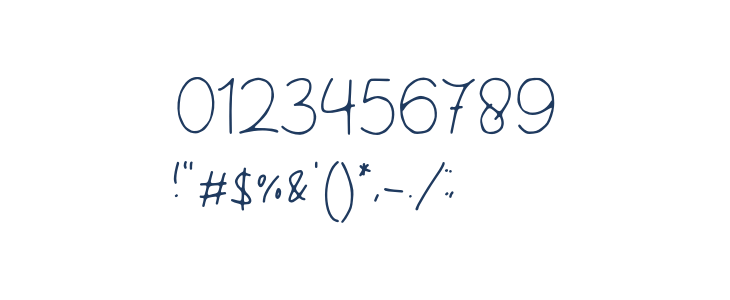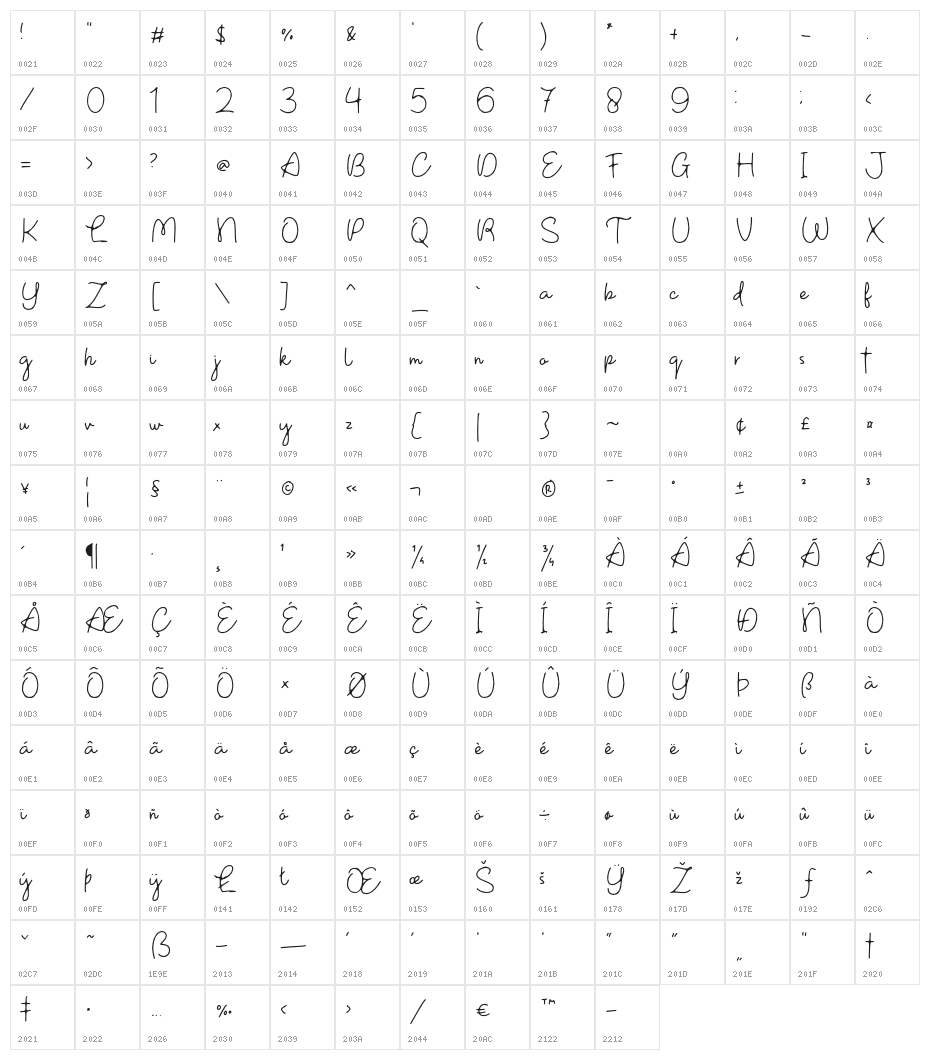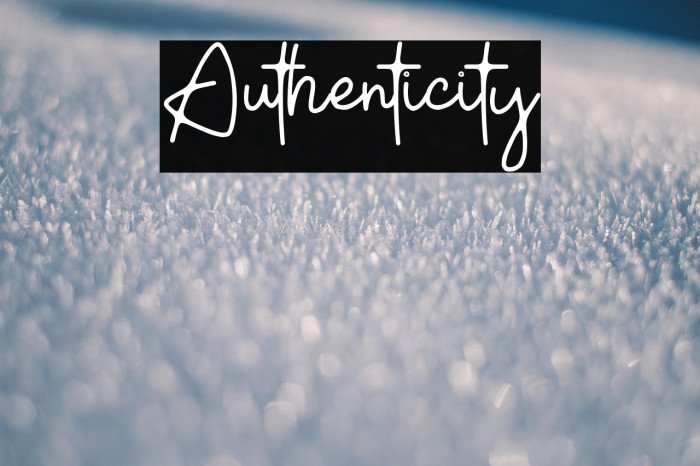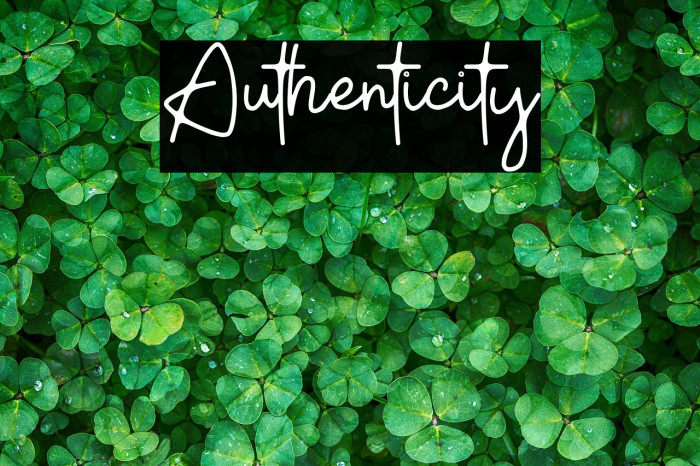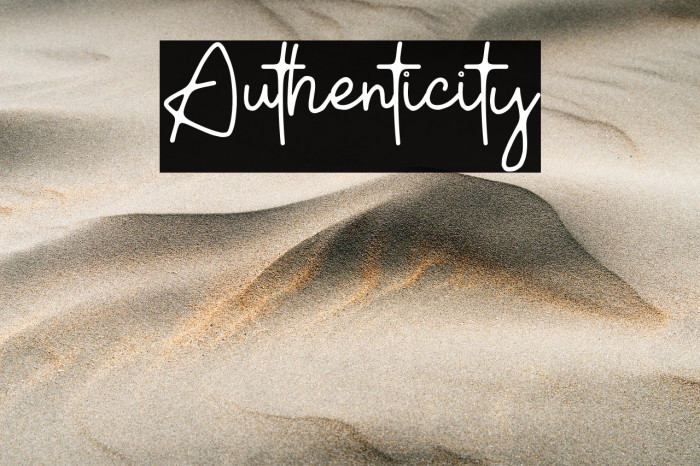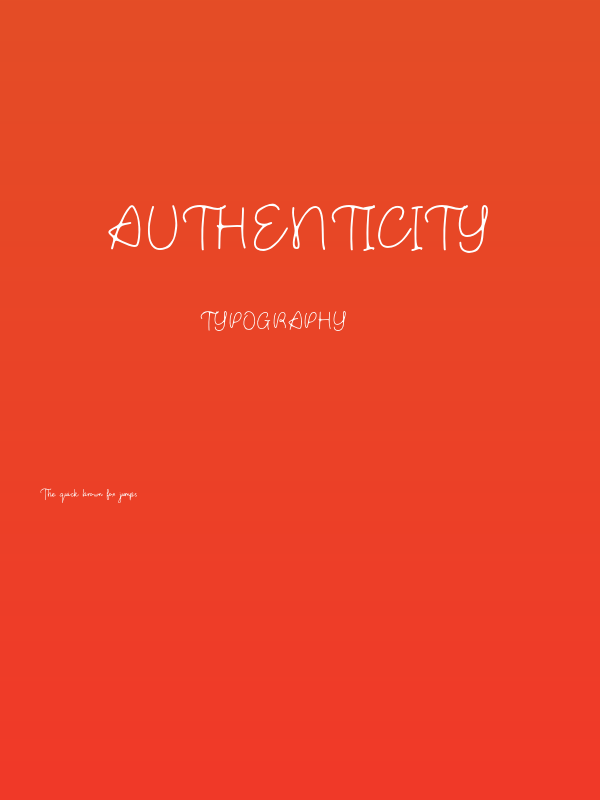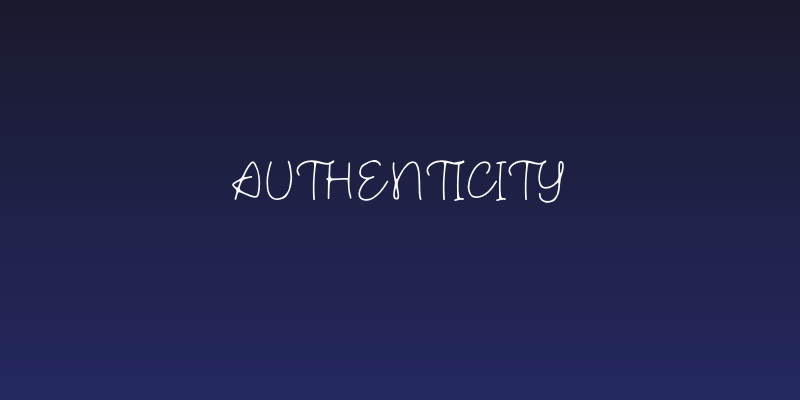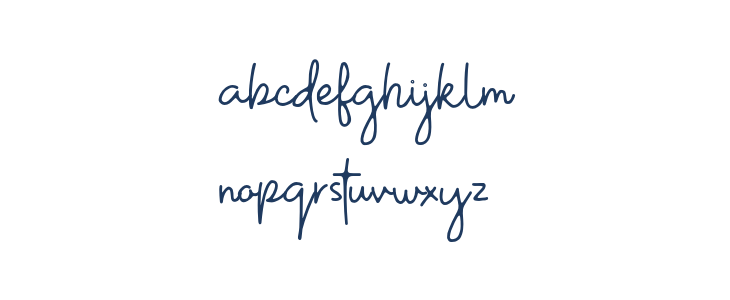
Authenticity Font
Authenticity Description
This font exudes a playful and casual handwritten style, characterized by its fluid and slightly irregular strokes. The uppercase letters are tall and slender, with a whimsical flair that suggests a personal touch. The lowercase letters maintain a consistent flow, enhancing the handwritten aesthetic. Numbers are clear and easy to read, while the special characters retain the same playful quality. The overall design is approachable and friendly, making it suitable for projects that require a personal or informal tone.
| Use Case | Logos, Headlines, Informal Text |
| Proposed Projects | Ideal for greeting cards, personal invitations, casual branding, and social media graphics. |